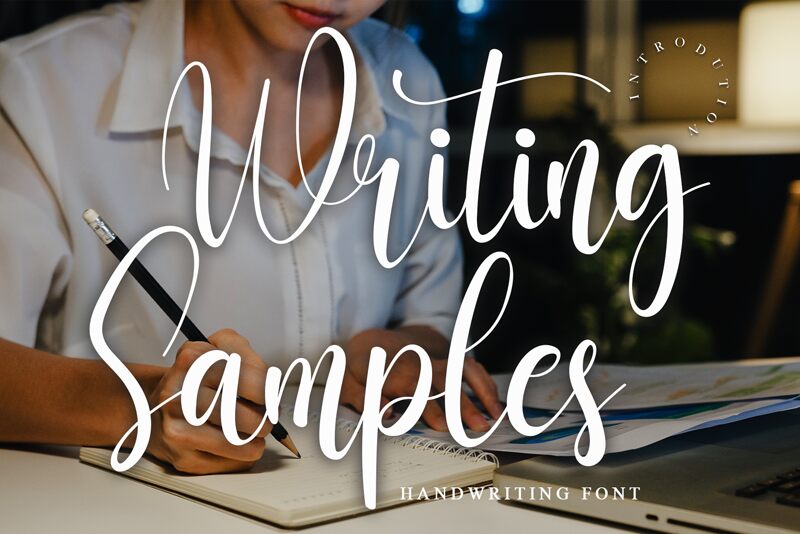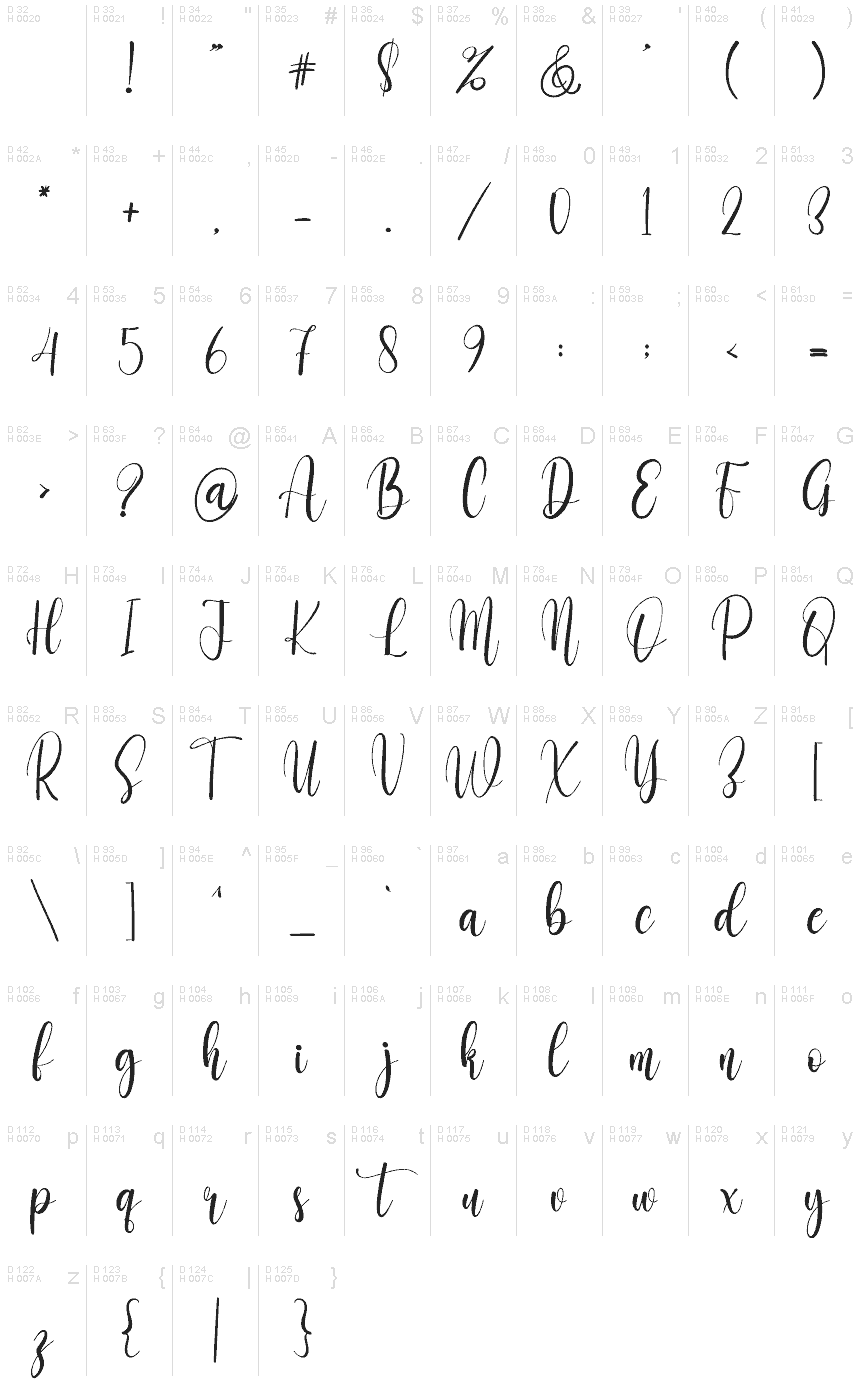
Writing Samples
Writing Samples font by Creatype Designer is a condensed handwritten font that retains a classy calligraphic influence while feeling contemporary and fresh. Its elegant yet whimsical style features flowing lines, expressive curves, and an artistic flair suitable for modern-day use.
Utilize this free handwritten font in posters, magazines, headlines, letterheads, advertisements, branding materials (business cards & logos), websites or apps design. Professional purposes can include presentations and reports or ideas where elegance is key such as insert cards invitations/certificates awards etc.